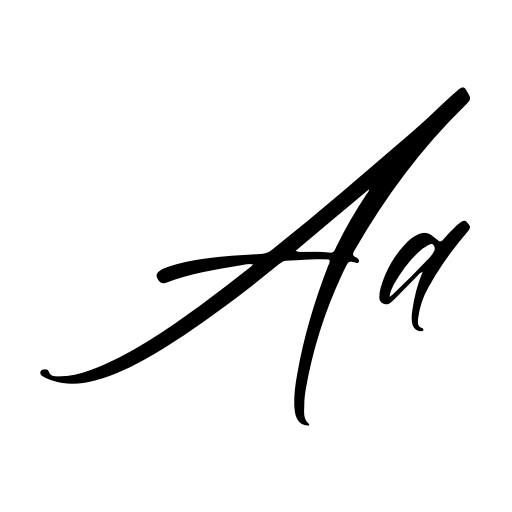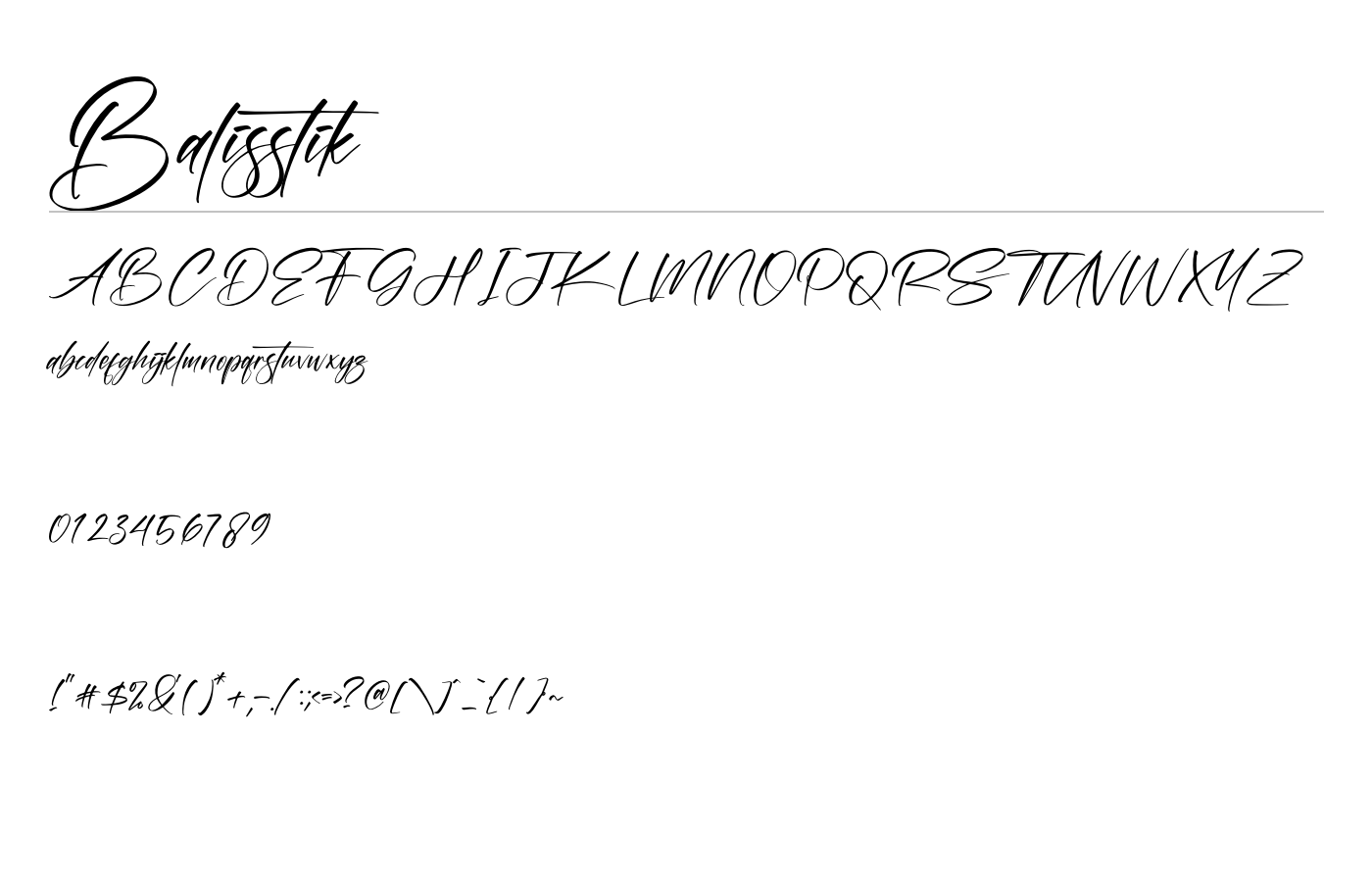
Balisstik is a stylish, elegant script font with a modern handwritten feel, featuring smooth, flowing strokes and a slightly condensed width. Its light weight and graceful curves lend a sophisticated, artistic vibe, making it ideal for creative branding, invitations, and luxury packaging where a personal yet refined touch is desired. This font works best in headlines and logos, adding an expressive and contemporary flair to any design.
Balisstik Font